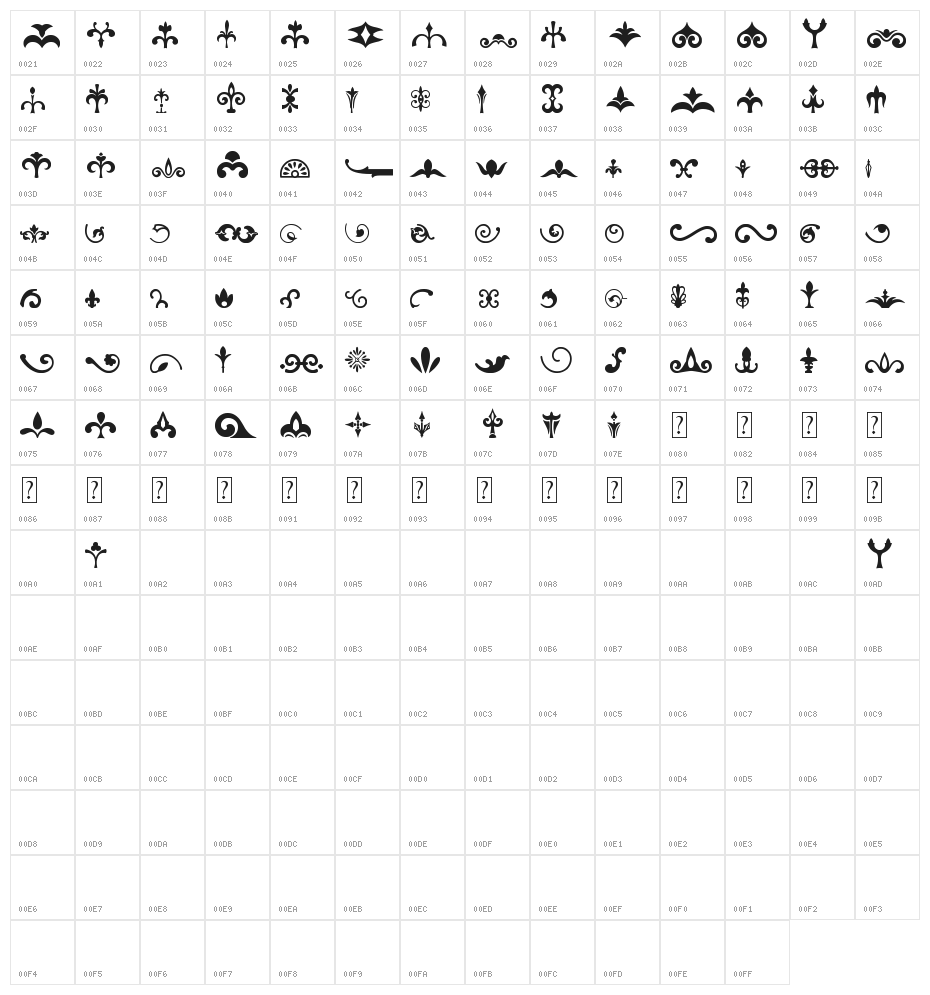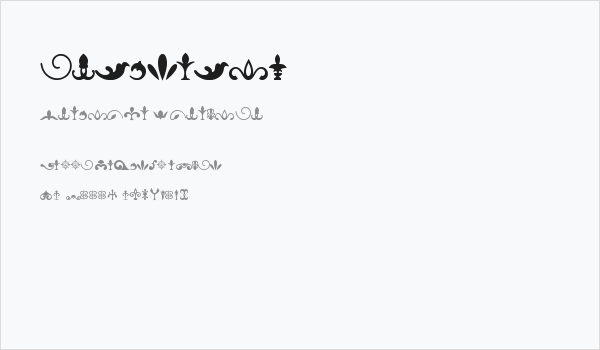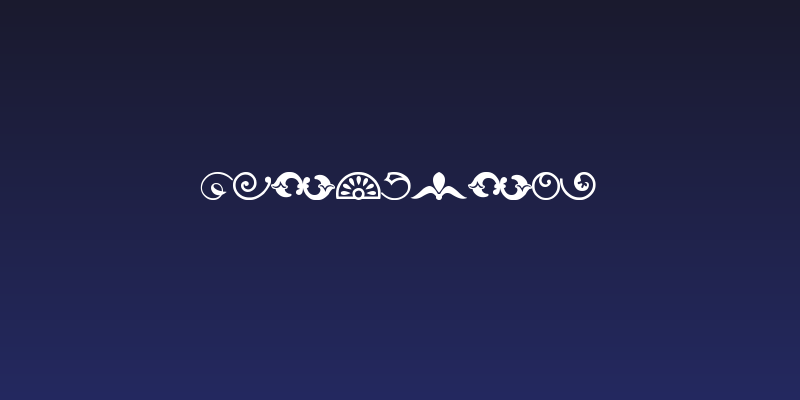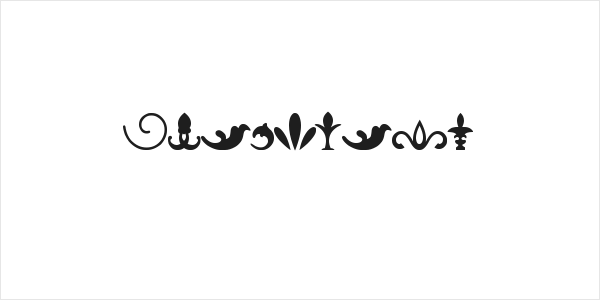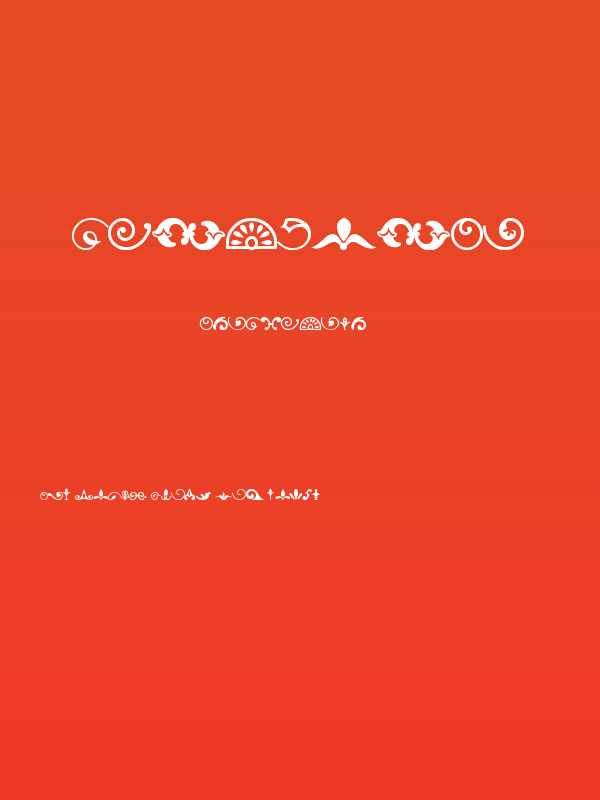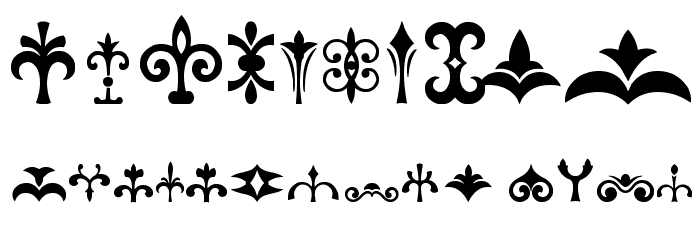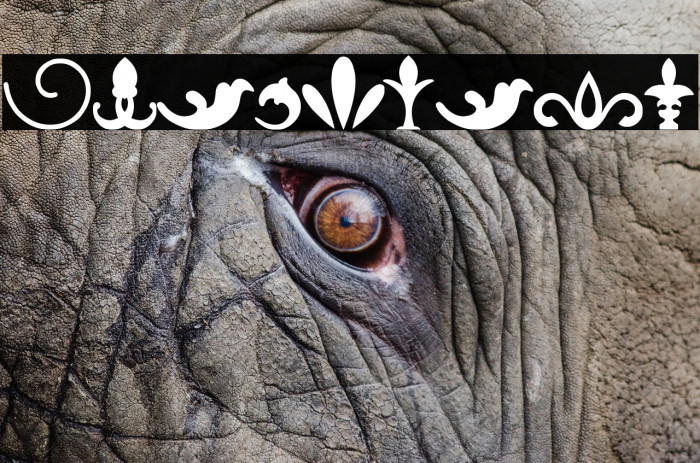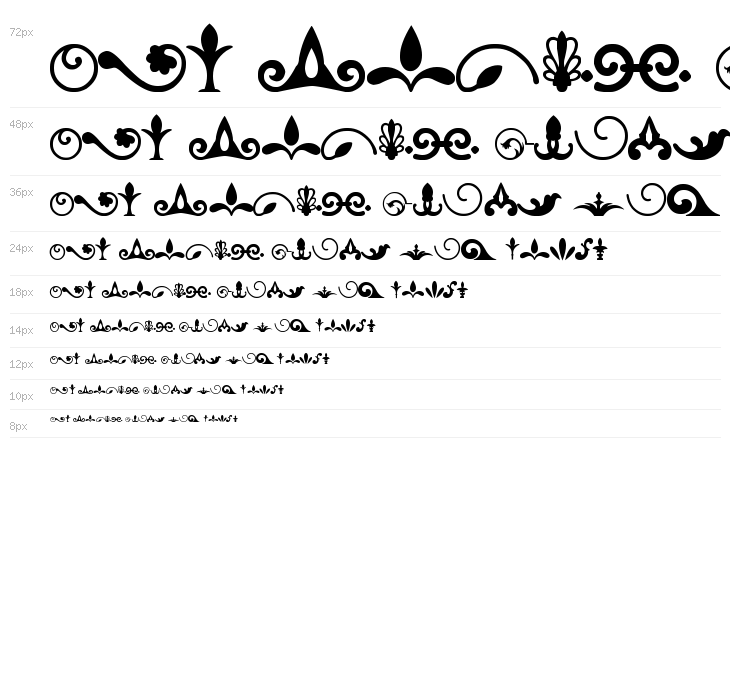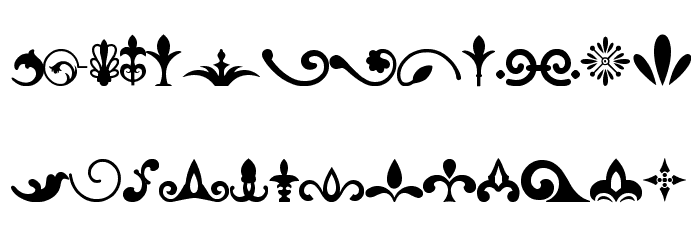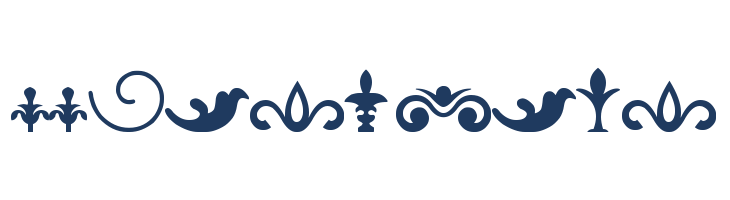
ornaments Font
ornaments Description
A collection of ornate, decorative glyphs and flourishes featuring swirls, floral motifs, and symmetrical shapes, reminiscent of vintage or classical ornamentation often used for borders, dividers, or embellishments.
| Overall Style | Vintage, Decorative, Classical |
| Use Case | Ornaments, Borders, Dividers, Embellishments |
| Proposed Projects | Wedding invitations, certificates, book covers, decorative borders, vintage posters, branding for luxury products. |